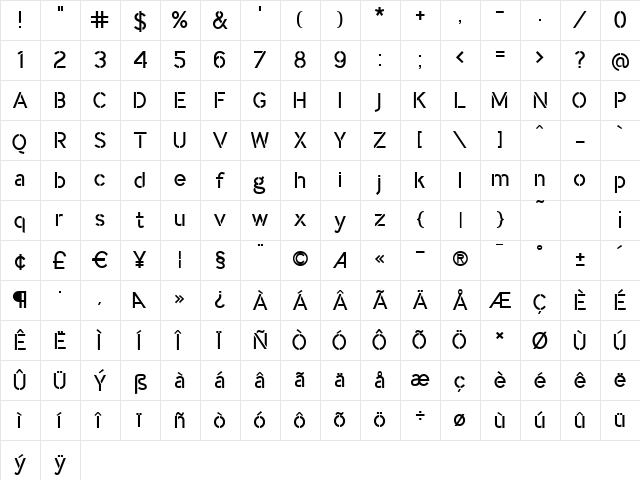
IdentikalSans Stencil
| Style | Stencil |
Design Context for IdentikalSans Typeface
IdentikalSans borrows the utilitarian aesthetic of stencil lettering, with its characteristic cutaways and no-frills construction lending an industrial edge.
Ideal for industrial branding, streetwear, military-adjacent aesthetics, and urban signage projects.
Pro Tip: Pair IdentikalSans with raw, utilitarian design elements — exposed concrete textures, flat colour, and minimal ornamentation suit it well.